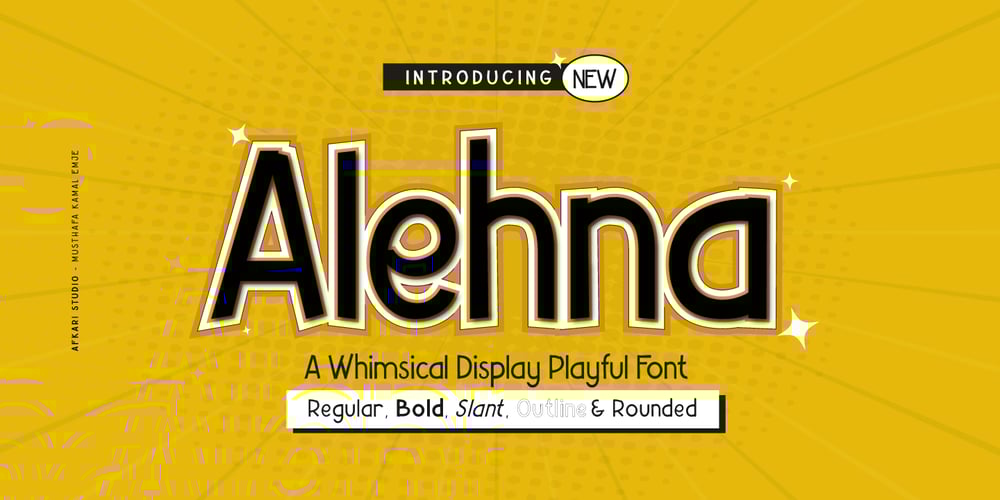
Alehna
Alehna font
Alehna Font Family was designed by Musthafa Kamal Emje and published by Afkari Studio. Alehna contains 5 styles and family package options. Alehna is A Whimsical Display Playful Font. This typeface is have a playful and casual look, suitable to use for headline, title, logo, book or magazine cover title, or anything related with fun themed or casual design project. Features:- Alternate + Ligatures- Works on PC & Mac- Simple installations- Accessible in the Adobe Illustrator, Adobe Photoshop, Adobe InDesign, even work on Microsoft Word- PUA Encoded Characters- Fully accessible without additional design software.- Multilingual Support